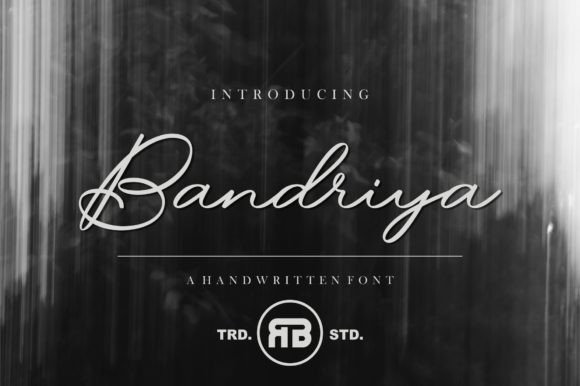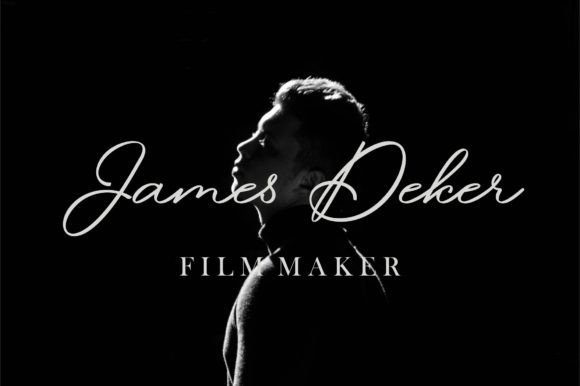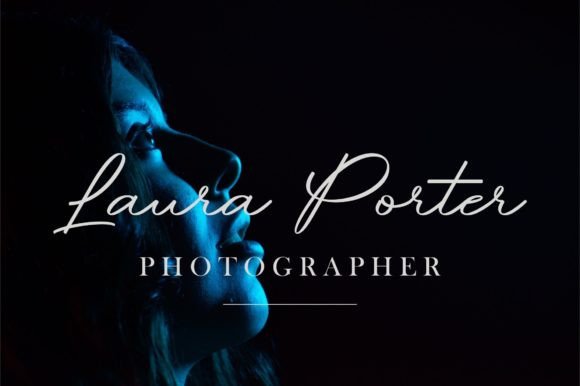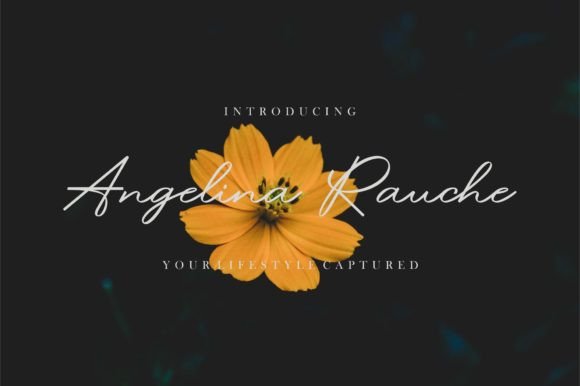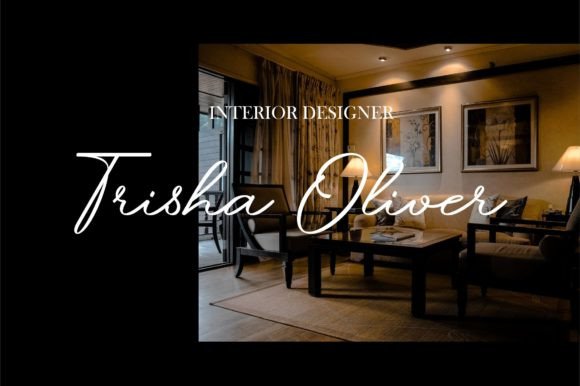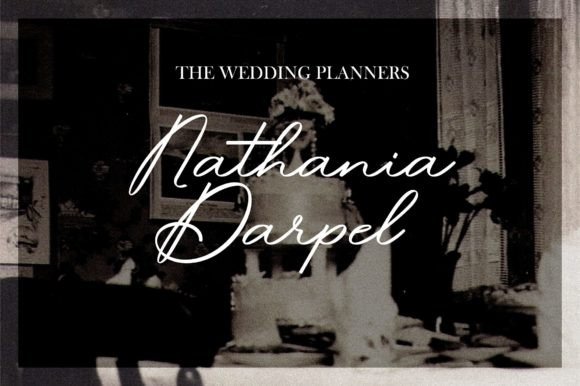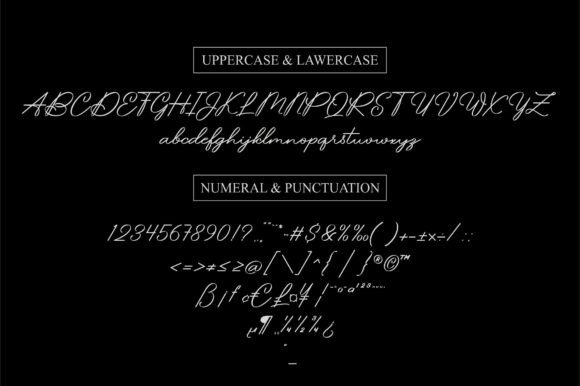
Bandriya Font
The Bandriya Font Download is a dazzling script typeface crafted with precision and elegance. With its neatly detailed strokes and stylish flow, it adds sophistication to any project. Because of its versatility, Bandriya is perfect for invitations, branding, greeting cards, packaging, posters, and digital creations.
A Dazzling Script with Elegance
Bandriya combines artistic handwriting with modern style. Unlike plain typefaces, this Bandriya script font brings character, refinement, and detail to designs. As a result, it is ideal for projects that demand creativity with a polished look.
Invitations always feel more memorable with elegant typography. The Bandriya Font is an excellent choice for wedding stationery, thank you notes, and personalized greeting cards. Moreover, its graceful strokes add romance and charm to every design.
Branding and Packaging with Bandriya Font
Typography shapes brand identity, and the Bandriya handwritten font is perfect for boutique logos, product packaging, and promotional materials. In addition, it provides a stylish yet professional feel that helps brands stand out.
Posters, Titles, and Display Use
Posters and display projects require fonts that capture attention instantly. The Bandriya Font Download works beautifully for billboards, flyers, and magazine titles. At the same time, it retains its elegance in smaller text, making it versatile for multiple uses.
In the digital era, fonts must be adaptable. The Bandriya typeface integrates seamlessly into Instagram posts, Pinterest graphics, YouTube thumbnails, and blogs. Its dazzling handwritten look ensures online content feels unique and visually appealing.
Why Designers Choose Bandriya Typeface
Designers prefer fonts that balance usability with beauty. Many script fonts lose clarity at smaller sizes, but the Bandriya handwritten script stays sharp while keeping its elegant character. This makes it reliable for both professionals and hobbyists.
Add Sophistication to Your Projects Today